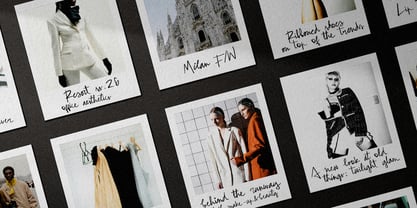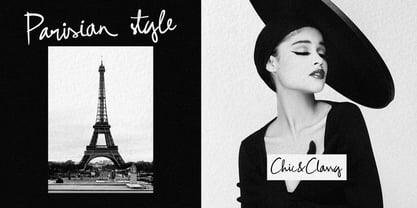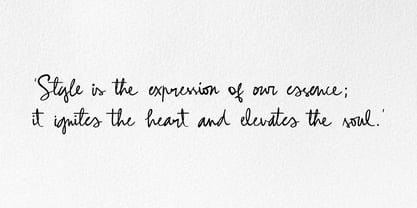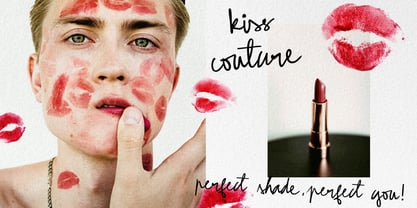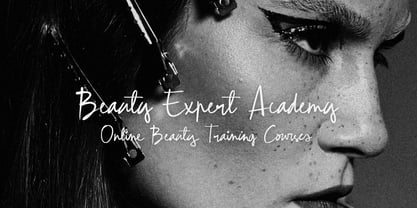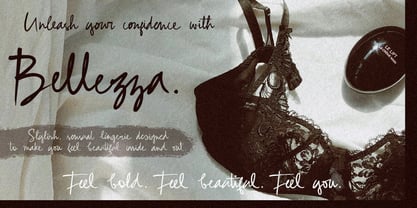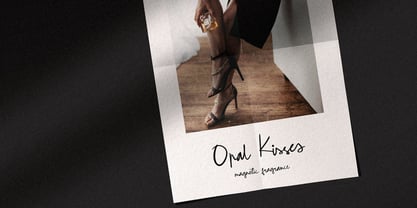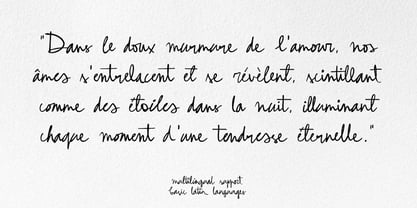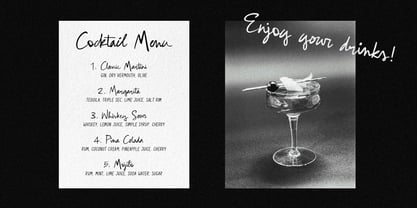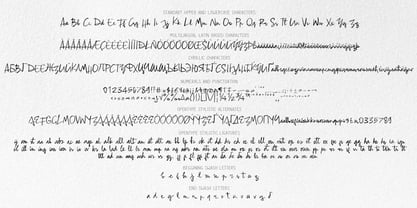
Romantic Whispers
by Fidan Fonts
The Romantic Whispers Font Family was designed by Fidan Aslanova and published by Fidan Fonts. Romantic Whispers contains 1 styles. More about this family
Romantic Whispers is a natural handwriting script inspired by the enchanting world of French fashion. This typeface embodies passion and style, like a kiss left softly on the page.
With "Romantic Whispers," you can infuse sophistication into any text—whether it's a chic logo, lipstick advertisement, or a heartfelt love letter. Each stroke is filled with grace and refinement, evoking the atmosphere of Paris, where fashion and art are intricately intertwined.
Built on foundational Latin and Cyrillic forms, this font offers over 150 OpenType alternatives and ligatures, allowing you to create unique typographic compositions. With more than 30 end and beggining swash letters available, it grants flexibility and expressiveness, unlocking endless creative possibilities.
Romantic Whispers is perfect for use in web design, print projects, and artistic endeavors.
Embrace the magic of this handwritten font that whispers tales of romance, fashion, and French allure!